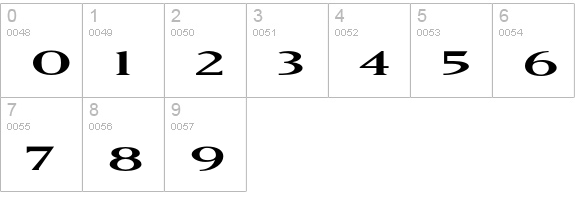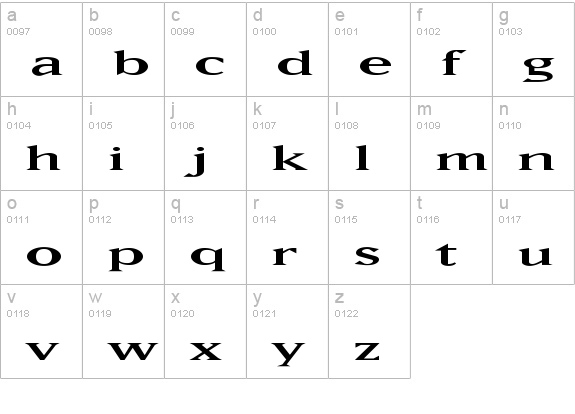
MatrixWideLining font is a sleek and modern typeface that exudes a sense of sophistication and professionalism. With its wide letter spacing and clean lines, this font is perfect for creating eye-catching designs that demand attention. Whether you are designing a logo, poster, or website, MatrixWideLining font will add a touch of elegance to your project. The best part is that MatrixWideLining font is available for free download at FontsMarket.com. You can easily add this stylish font to your collection without any cost. So why wait? Enhance your designs with the sleek and modern look of MatrixWideLining font today!